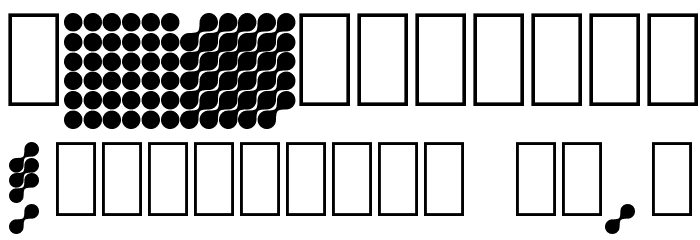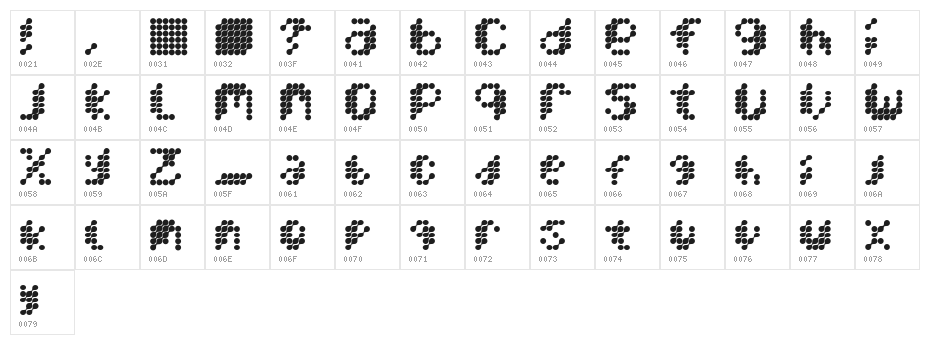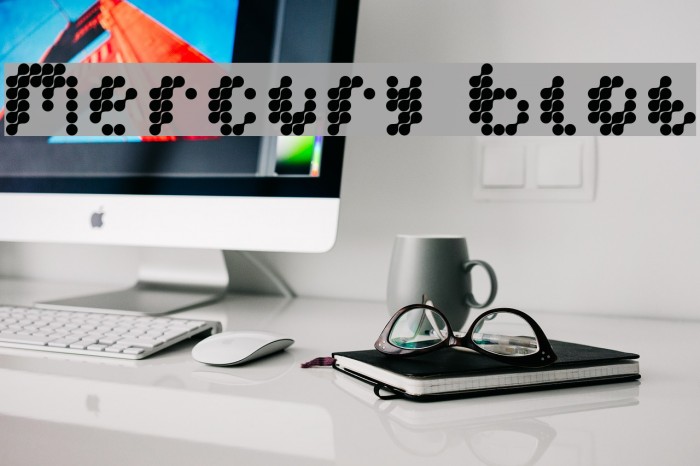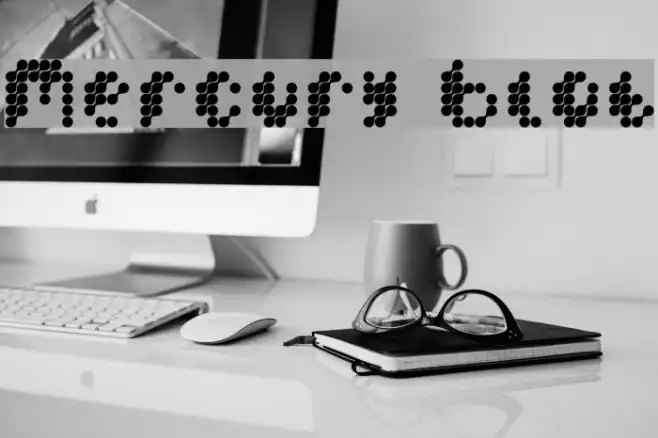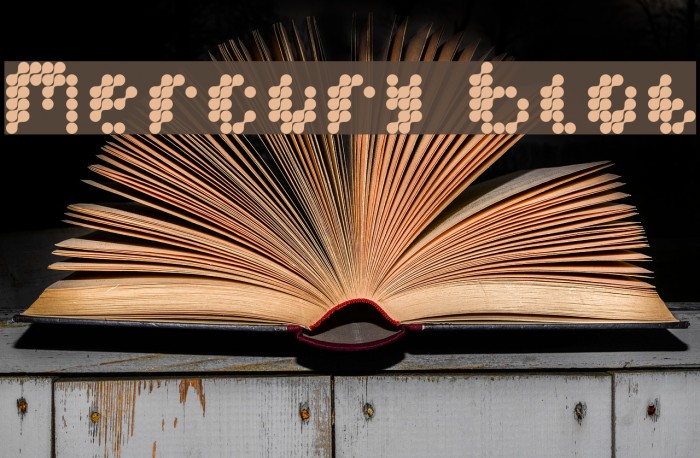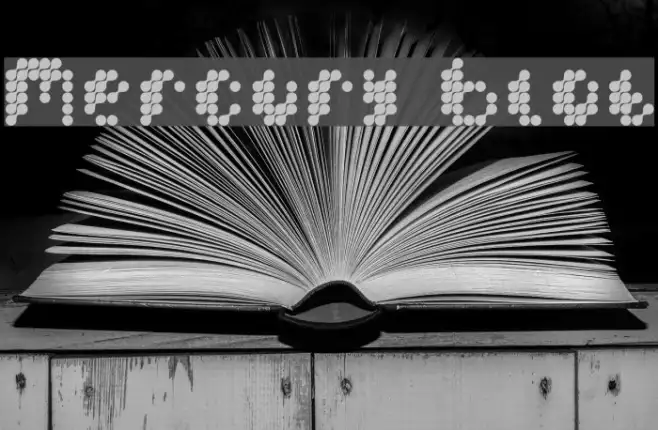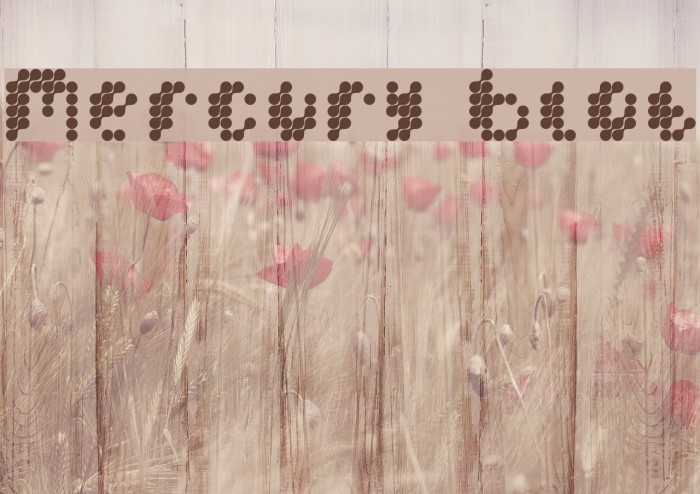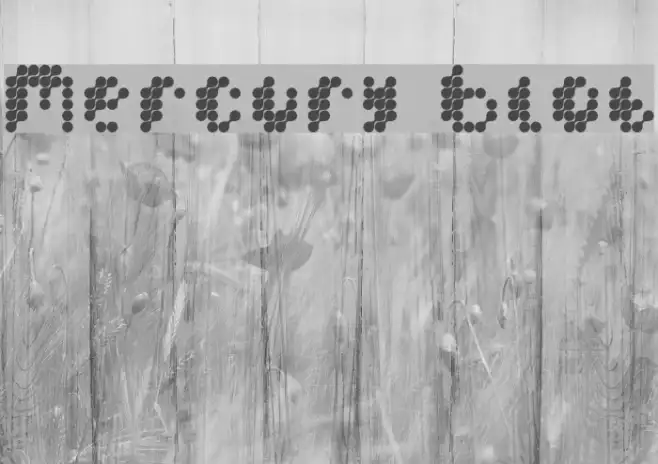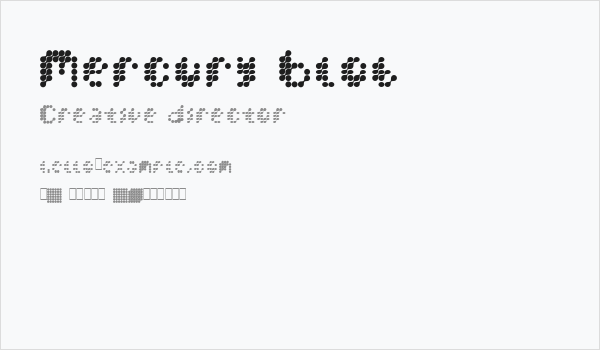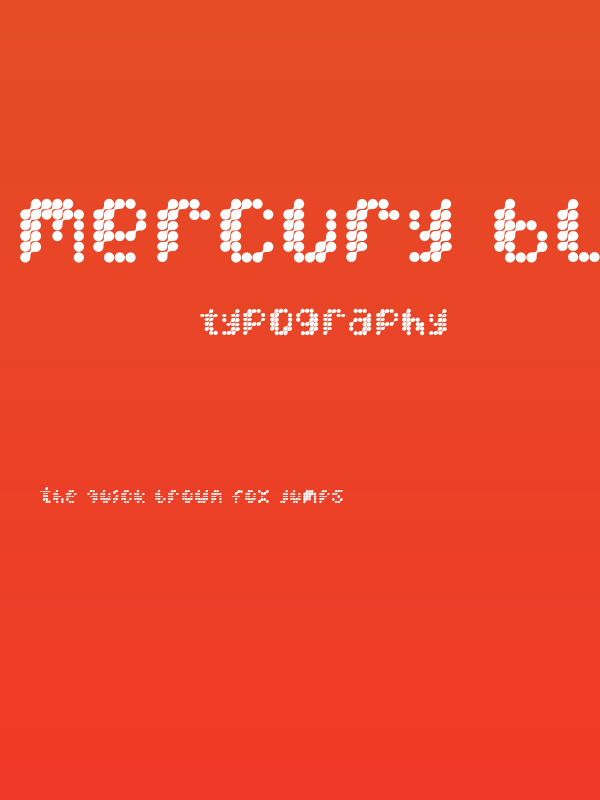
Mercury Blob Font
Mercury Blob Description
This font features a unique and playful design, composed entirely of small, evenly spaced circular dots that form each character. The letters maintain a consistent height and width, creating a uniform appearance across both uppercase and lowercase alphabets. The rounded, bubbly style gives it a whimsical and modern feel, making it stand out in any design. The numbers and special characters follow the same dot pattern, ensuring a cohesive look throughout. This font is ideal for creative projects that require a fun and engaging typeface.